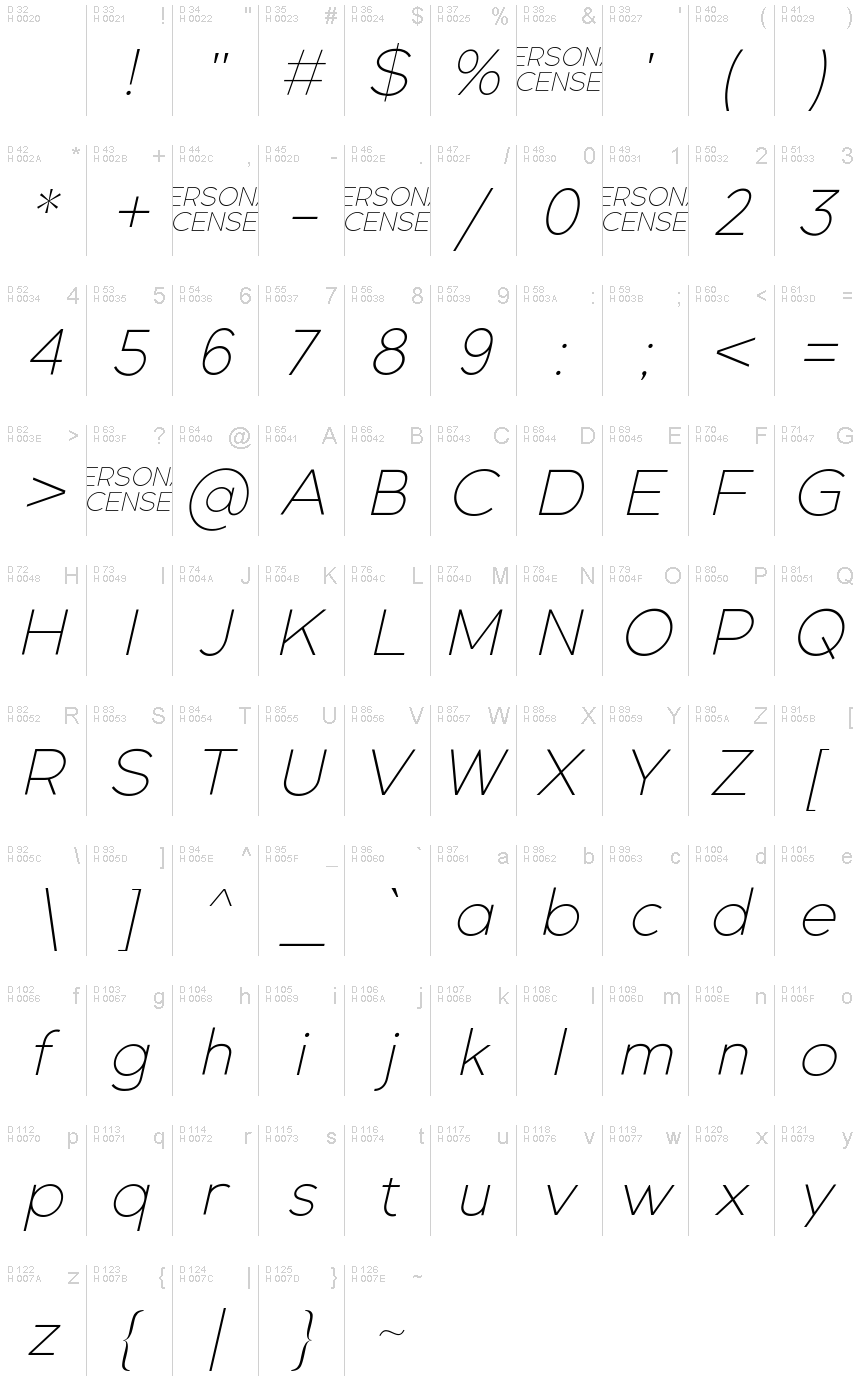
Gexo Sans Thin Italic
Gexo Sans Thin Italic, designed by Java Pep, is a sleek and modern member of the Gexo Sans font family. Its sans serif style exudes a clean and minimalist aesthetic, while its lightness provides an airy, refined quality. The italicized stance adds a touch of elegance and dynamism, suggesting movement and forward-thinking.
This font's understated charm makes it ideal for contemporary design work where sophistication is key. It would lend itself beautifully to high-end branding projects, editorial layouts in fashion magazines, or tech start-up presentations where clarity meets style. Gexo Sans Thin Italic offers designers a subtle yet distinctive typographic tool to convey luxury and innovation with grace.